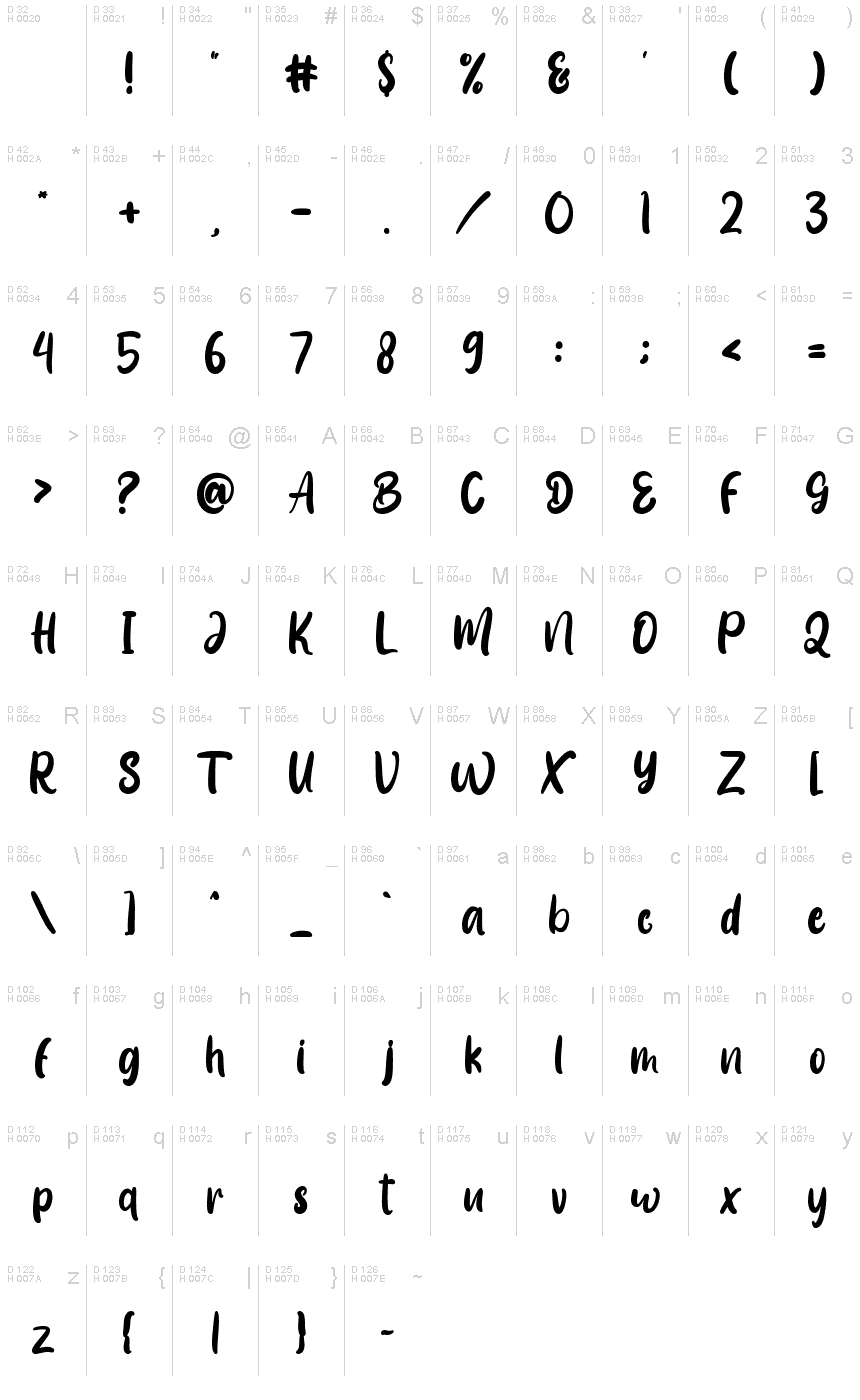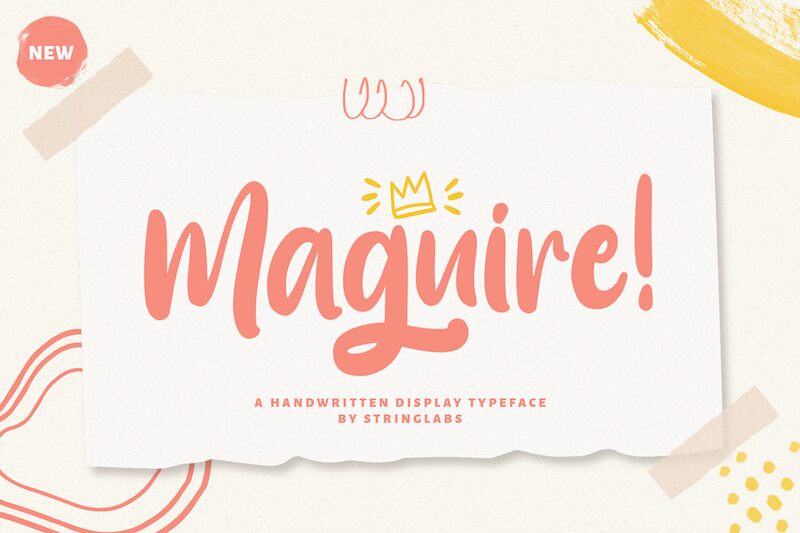
Maguire
Maguire is a charming handwritten display font designed by Virgiawan Listanto. Its curvy and playful strokes give any project a unique and personal touch, making it suitable for a range of creative projects such as invitations, posters, logos, and branding materials. Maguire features uppercase and lowercase letters, numbers, symbols, and ligatures that add more personality to your designs. With its friendly vibe and versatile style, Maguire is the perfect choice for those looking to add a touch of whimsy to their projects. Try it out today!